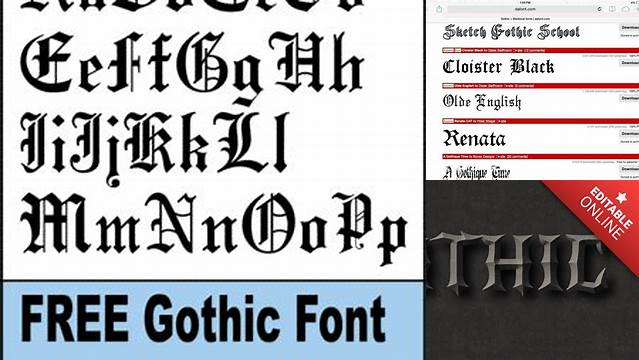
Gothic Fonts: Your Ultimate Guide To Font Generators
Hey everyone! Ever wanted to spice up your designs with some seriously cool fonts? You're in luck! Today, we're diving deep into the world of gothic fonts and how to use a font generator to create some awesome text. This is your ultimate guide, so buckle up and get ready to become a gothic font pro! We'll cover everything from what makes a gothic font so unique to the best generators out there and how to use them like a pro. So, let's get started and discover the power of gothic fonts!
What Exactly Are Gothic Fonts, Anyway?
Alright, first things first: what exactly are gothic fonts? Well, contrary to what some might think, they're not just for spooky stuff or medieval-themed projects. The term 'gothic' can be a bit misleading, as it's often used interchangeably with 'blackletter' or 'Old English' fonts. These fonts are characterized by their intricate, ornate designs, often featuring thick, heavy strokes and sharp angles. Think of the classic calligraphy style you see in old manuscripts or on diplomas. Gothic fonts typically convey a sense of history, elegance, and sometimes a touch of mystery. They're perfect for projects that need a touch of old-world charm or a bold, eye-catching aesthetic. Gothic fonts are not just about the look; they have a rich history rooted in the development of printing and calligraphy. They originated in Europe during the medieval period and were heavily used in the early days of printing. They played a significant role in spreading information before the advent of modern typography. Understanding this background can help you appreciate the fonts and their usage. The design of a gothic font often includes a distinct contrast between thick and thin strokes, with serifs (the small decorative strokes at the ends of letters) frequently being angular or absent. The use of these fonts can add a feeling of prestige and antiquity to a modern project. The variations within gothic fonts are many, ranging from highly stylized and elaborate versions to simpler, more readable designs. Each has its own character and is best suited for various creative needs. Choosing the right gothic font can therefore dramatically change the feel of your design. It’s essential to understand the visual characteristics of these fonts. When you use them, consider the mood you're trying to create and whether it will clash with your overall design goals.
Key Characteristics of Gothic Fonts
Let's break down some of the key characteristics that define gothic fonts: First off, the thick and thin strokes. Gothic fonts are known for the contrasting strokes, making them visually striking. The serifs, or lack thereof, is another important aspect to note. Some gothic fonts have sharp, angular serifs, while others lack serifs, giving them a more modern look. Gothic fonts commonly utilize calligraphic influences. The shapes of gothic fonts often replicate the hand-written look. The ornate details are another characteristic that adds to the elegance. Lastly, consider the historical context. Knowing the roots of a font gives you a better insight into its best use. Considering these elements is crucial to use gothic fonts in the best way possible.
Why Use a Font Generator for Gothic Fonts?
So, why should you even bother with a font generator when it comes to gothic fonts? Well, using a font generator gives you a whole heap of advantages. First off, you get instant access to a huge variety of fonts. Font generators can help you preview and experiment with different font styles without downloading and installing them. This helps to quickly find the perfect look for your project. The ease of use is another big win. The generators are often designed to be user-friendly, and you can easily input your text and see how it looks in different gothic styles. It is especially beneficial if you are not a design expert. Customization options are another reason to use a font generator. Some generators offer options to tweak the fonts to your liking, which gives you more control over your final design. You can alter sizes, colors, and even add effects. Font generators also allow you to bypass the complexity of finding, downloading, and installing fonts manually. This saves a ton of time and effort. They are often available for free or at a low cost. This is great for those who are on a budget.
Benefits of Using Font Generators
Let’s dive deeper into the benefits of using font generators, shall we? The first is convenience. You can access a vast collection of fonts without needing to install them on your device. Second, is the preview feature. Font generators allow you to quickly see how your text will look in different gothic font styles. The customization options are a game changer. The ability to change sizes, colors, and effects is a great asset. Last but not least, is the cost-effectiveness. Many font generators are free, or offer very affordable subscriptions. Using a font generator allows you to try out different gothic styles without making any financial commitments. This helps you find the ideal font style for your project without much fuss.
Top Font Generators for Gothic Fonts
Okay, now for the good stuff: where do you actually find these magical font generators? There are a bunch of awesome options out there, both free and paid, that can help you bring your gothic font dreams to life. Some of the top choices include online tools such as FontGet, and FontSpace. These websites offer a vast library of gothic fonts, allowing you to preview and download them with ease. They often feature user-friendly interfaces where you can type in your text and instantly see how it looks in a particular font. Another popular category is the online design platforms, like Canva. They often include a selection of gothic fonts in their font library. Canva is great if you are looking to create graphics and designs without downloading a separate font generator. Lastly, you have specialized font generators. These are designed specifically for gothic fonts. They offer advanced features and customization options. Be sure to explore the features of each generator before deciding which to use.
Free vs. Paid Font Generators
When it comes to font generators, you'll often encounter two main categories: free and paid. Each option has its own set of pros and cons, so let's break them down. Free font generators are a great starting point, especially if you're on a budget or just starting out. They provide access to a wide variety of gothic fonts without any upfront cost. You can preview and experiment with different styles without any financial commitment. However, free options often have some limitations, such as a smaller selection of fonts or fewer customization options. You might also have to deal with ads. Paid font generators usually offer more advanced features, a wider range of fonts, and more customization options. They often provide better support. However, you will have to pay a subscription or one-time fee. Consider the needs of your project, and then decide on your options.
How to Use a Gothic Font Generator: A Step-by-Step Guide
Alright, let's get down to brass tacks. Using a gothic font generator is usually a breeze, but here's a step-by-step guide to get you started: First, choose your generator. Select a font generator that suits your needs. This includes considering the available fonts and features. Next, enter your text. Type the text you want to see in a gothic font. This may be a title, a quote, or any other text. Then, select your font. Browse the available font styles and select the gothic font that appeals to you. After that, customize your font. You can adjust the size, color, spacing, and other properties. Finally, download your font. Once you are happy with the result, download the font. Most generators will provide a download link. Following these steps will get you up and running with gothic fonts in no time.
Tips for Maximizing Your Gothic Font Generator Experience
To get the most out of your gothic font generator experience, here are some tips: First, experiment with different fonts. Do not settle on the first font you see. Test a range of options to find the perfect match for your project. Second, pay attention to readability. Make sure the font is clear and easy to read, especially at smaller sizes. Third, adjust the size and spacing. Sometimes, the font might be too large, too small, or the spacing is off. You can make adjustments in your font generator. Last but not least, consider the context. Think about the message you are trying to convey and how the gothic font fits into the project. These tips will make you successful. The more you use these tips, the better you will be at the process.
Best Practices for Pairing Gothic Fonts
So, you've chosen your gothic font – awesome! Now, how do you make it look even better? Pairing your gothic font with other fonts is a great way to add depth and interest to your designs. Here's a few pointers to guide you: First, consider combining your gothic font with a clean, modern sans-serif font. This creates a nice contrast. A clean sans-serif font can balance the ornate details of a gothic font. The goal is to create visual interest without overwhelming the reader. You can also pair a gothic font with a classic serif font. Select a serif font that complements the style of your gothic font. You don't want the fonts to clash. Another practice is to limit the use of gothic fonts. Using gothic fonts sparingly can add a touch of sophistication. Overusing them might make your project feel cluttered or dated. Experimenting with different font pairings is a great way to see what works best for your design. Play around with font weights, sizes, and styles. The best font pairings depend on your project's needs.
Conclusion: Embrace the Gothic Style!
So there you have it, folks! A deep dive into the world of gothic fonts and font generators. From understanding their history and characteristics to finding the best tools and using them like a pro, you're now well-equipped to incorporate these awesome fonts into your designs. So go out there, experiment, and have fun. You are ready to create some stunning, head-turning projects. Embrace the gothic style and unleash your creativity. Remember, choosing the right font can transform your project. So, get creative and have fun!